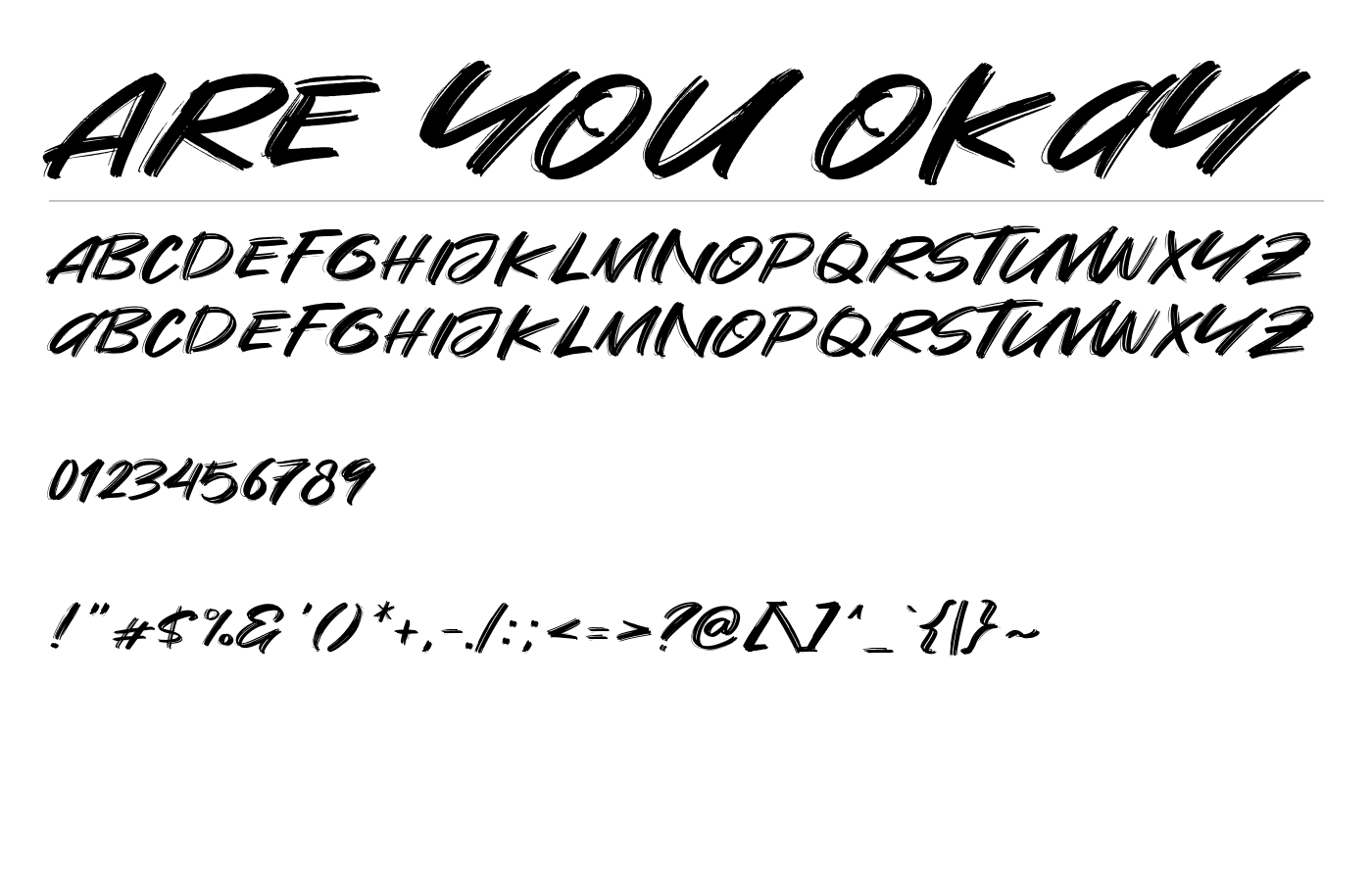
Are You Okay is a bold, expressive brush script font with a dynamic, hand-painted feel that conveys energy and spontaneity. Its textured, slightly rough strokes and casual letterforms make it perfect for creative, informal designs that want to capture attention with a lively, personal touch. This font works well for branding, posters, social media graphics, and any project seeking a vibrant, artistic vibe.
Are You Okay Font
About Are You Okay Font
| Font family | Are You Okay Font |